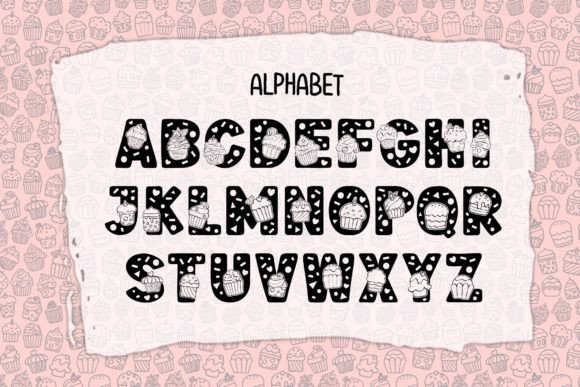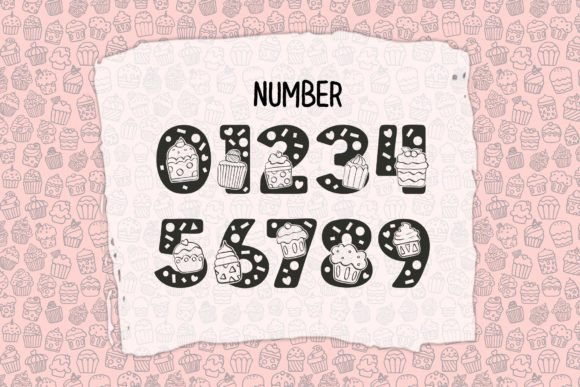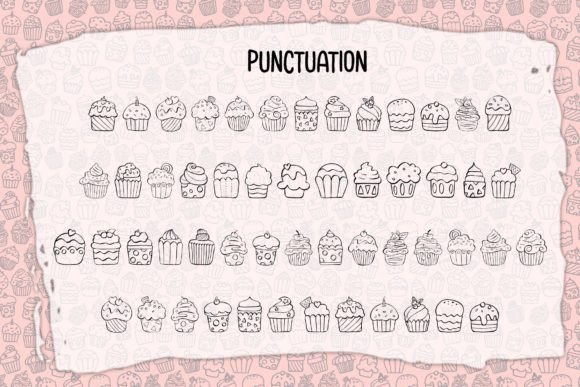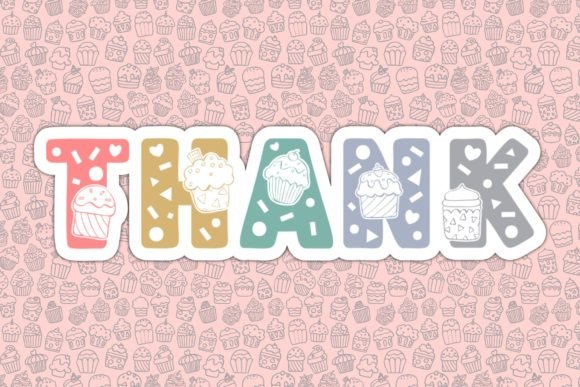
Introduction to Funny Cupcake Font
Do you remember the excitement of decorating your first birthday cake as a child? The thrill of adding colorful sprinkles, frosting, and that perfect finishing touch – a cupcake topper. As designers, we’re always looking for ways to bring that same creativity and joy to our projects. That’s where the Funny Cupcake Font comes in – a high-quality, free download that’s perfect for adding a touch of whimsy to your designs.
Whether you’re working on a social media campaign, creating a logo for a bakery, or crafting a DIY project, the Funny Cupcake Font is a valuable design resource that’s sure to bring a smile to your face and your clients’. With its transparent background and versatility, this font is a must-have for any designer looking to add a little fun and personality to their creative project.
Key Features of Funny Cupcake Font
- High-quality design: Funny Cupcake Font is designed with attention to detail, ensuring a professional and playful look for your creative project.
- Unique cupcake-inspired design: The font features whimsical cupcake illustrations, adding a touch of humor and personality to your text.
- Creative freedom: This font is perfect for designers looking to add a touch of humor and whimsy to their designs, making it an ideal choice for birthday invitations, party decorations, and more.
Honest Review: Funny Cupcake Font
I recently stumbled upon the Funny Cupcake Font, a design resource that I was excited to try out for my next creative project. The font is a free download, which is always a plus in my book. Upon first glance, I was impressed with the high quality of the font and its potential to add a playful touch to any design.
What works well with the Funny Cupcake Font is its versatility. I was able to use it for a variety of designs, from social media graphics to print materials. The font is also available with a transparent background, which makes it easy to use in conjunction with other design elements.
- High quality, clear lines and characters
- Perfect for creative projects that require a playful touch
⚠️ One limitation of the Funny Cupcake Font is its limited character set. While it’s perfect for short phrases and titles, it may not be suitable for longer blocks of text.
Overall, I’m impressed with the Funny Cupcake Font. It’s a great addition to any designer’s toolkit, and its high quality and versatility make it a valuable design resource. ✨ I’ll definitely be using it for future projects!
For the most creative results, use the Funny Cupcake Font on a transparent background to make it stand out. You can also experiment with different font sizes, colors, and arrangements to add visual interest to your design.
The Funny Cupcake Font is perfect for creative projects such as cupcake-themed party invitations, social media graphics, and baking blog designs. Its playful and whimsical style makes it an ideal choice for adding a touch of fun and personality to your designs.